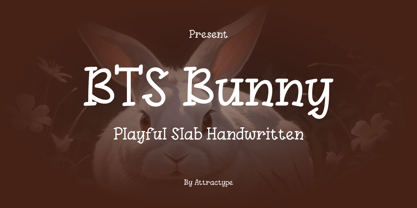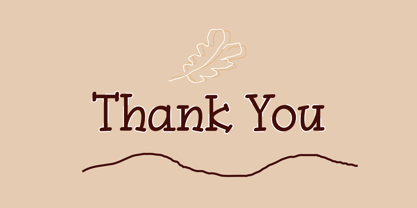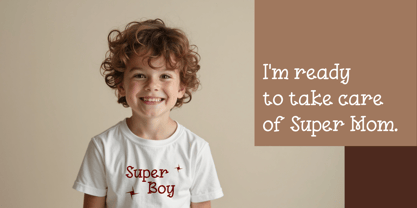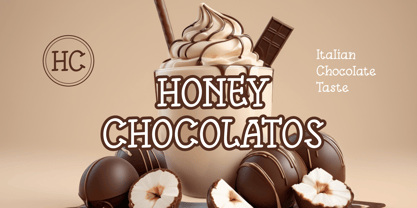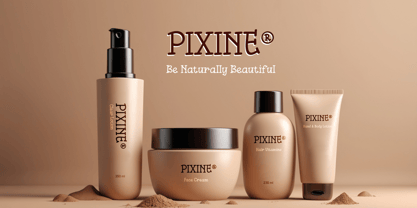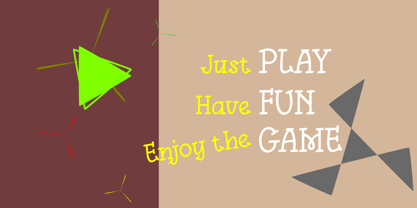
BTS Bunny
by Attractype
The BTS Bunny Font Family was designed by Saefulloh and published by Attractype. BTS Bunny contains 1 styles. More about this family
BTS Bunny is a simple, easy-to-read, and playful slab handwritten font. Suitable for your various great design projects with cheerful, natural, classic, vibrant, and familiar themes.
This font contains all uppercase and lowercase letters, numbers, punctuation, and multilingual support.
Designers: Saefulloh
Foundry: Attractype